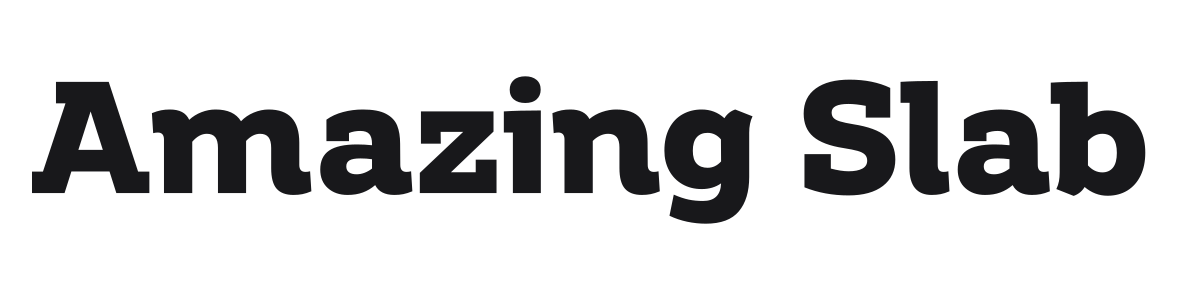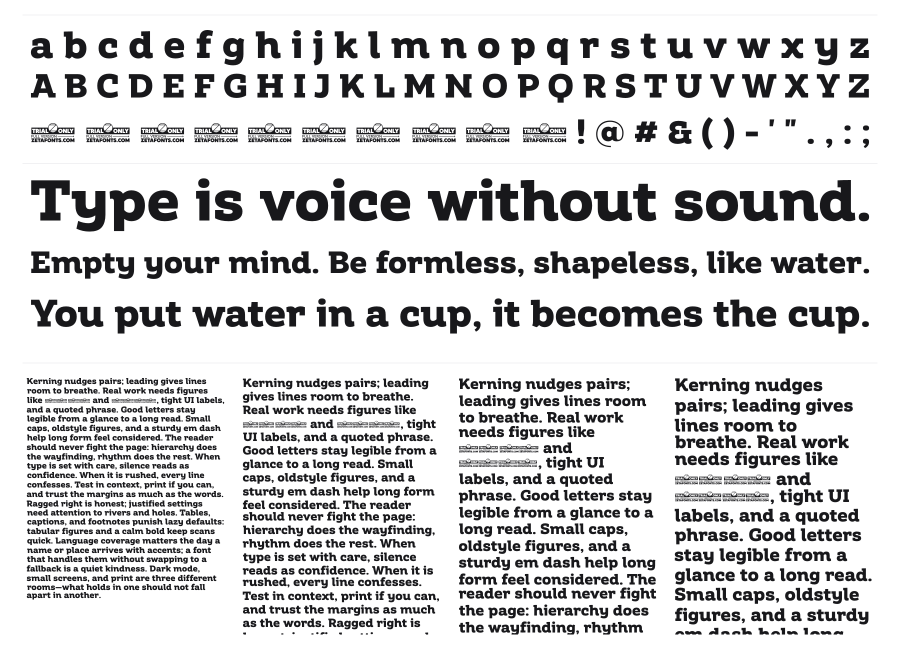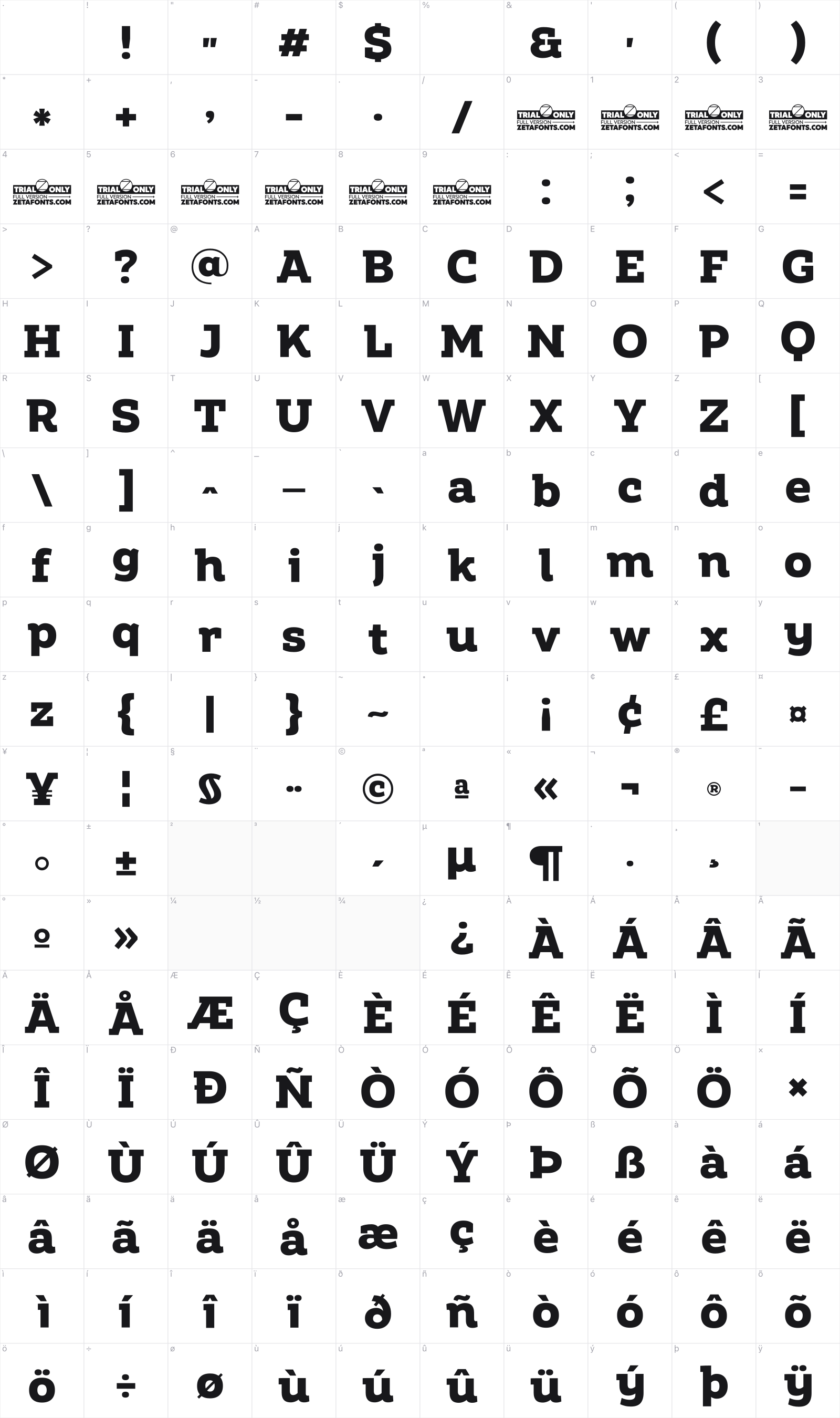
Amazing Slab
Amazing Slab is a bold slab-serif by Francesco Canovaro that merges Egyptian structure with the rounded terminals and open shapes of humanist grotesques. The result is a typeface that feels both sturdy and inviting, carrying authority without coldness. It was built around the startup world's appetite for energy, clarity, and personality.